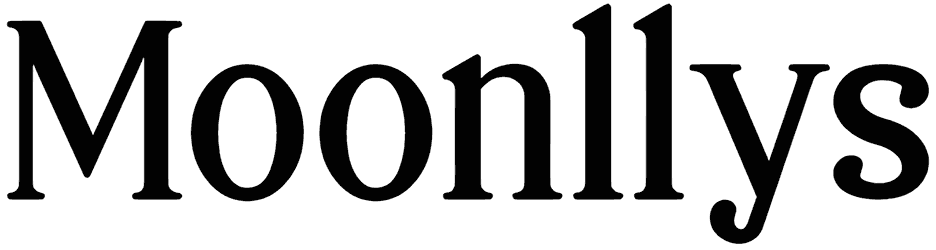
Moonllys Font
Elegance, formal, and stylish are the unique features of Moonllys. This serif font creates that chic look with long letters and small and sharp ticks on the edges, which is a feature that would be great for website headers, wedding cards, company signs, and advertisement billboards.